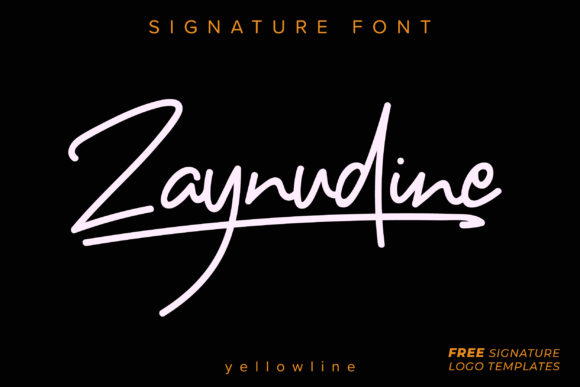
Introducing Zaynudine Font: Timeless Elegance Meets Modern Flair
Embrace the beauty of calligraphy with Zaynudine Font, a script font family that exudes elegance and sophistication. Inspired by the timeless artistry of handwritten letters, Zaynudine captures the essence of authenticity and modernity, making it the perfect choice for designers seeking a touch of classic charm in their projects.
Step into a world of creative possibilities with Zaynudine, a font that effortlessly blends the allure of the past with the vibrancy of the present. Its meticulously crafted characters reflect the passion and dedication of its creator, yellowline, resulting in a font that speaks volumes without uttering a single word.
With Zaynudine, your designs will transcend the ordinary and take on a life of their own. Its graceful curves and delicate flourishes add a touch of refinement to any project, whether it's a wedding invitation, a heartfelt letter, or an eye-catching social media post.
Unlock the full potential of your creative vision with Zaynudine, a font that seamlessly adapts to a wide range of design styles. From elegant logos and branding materials to captivating posters and flyers, Zaynudine effortlessly elevates your designs, infusing them with a timeless appeal that resonates with audiences.
Immerse yourself in the world of Zaynudine and experience the joy of crafting designs that tell a story. Its versatility knows no bounds, allowing you to explore endless creative avenues and leave a lasting impression on your clients and audience.
Don't settle for ordinary fonts that blend into the background. Choose Zaynudine, a font that stands out from the crowd with its captivating presence. Its intricate details and flowing lines will captivate your audience, leaving them mesmerized by the beauty of your designs.
Zaynudine is more than just a font; it's an invitation to embark on a creative journey where your imagination knows no limits. Transform your designs into works of art and leave an indelible mark on the world. Experience the magic of Zaynudine today and watch your creative dreams come to life.